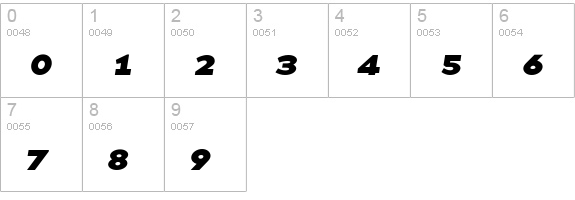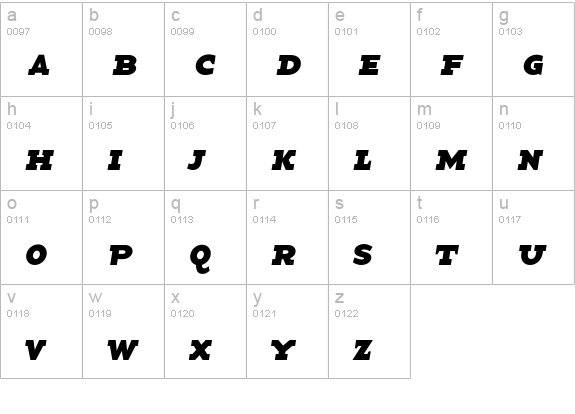
BaseTwelveSerifSCBI Font Details
BaseTwelveSerifSCBI font is a beautifully designed serif typeface that exudes elegance and sophistication. Its intricate details and delicate serifs give it a timeless and classic appearance, making it perfect for a wide range of design projects. The font strikes a perfect balance between traditional and modern, making it versatile and suitable for both print and digital applications. What sets BaseTwelveSerifSCBI font apart is its unique blend of sophistication and readability. The subtle curves and sharp angles create a harmonious balance that ensures easy legibility while adding a touch of refinement to any text. Whether used for headlines, body text, or branding, this font is sure to make a statement and leave a lasting impression on your audience. And the best part? BaseTwelveSerifSCBI font is available for free at FontsMarket.com. You can easily download this stunning typeface and elevate your designs with its timeless charm and sophisticated flair. Don't miss the opportunity to add this exquisite font to your collection and enhance your creative projects with its elegant aesthetic.